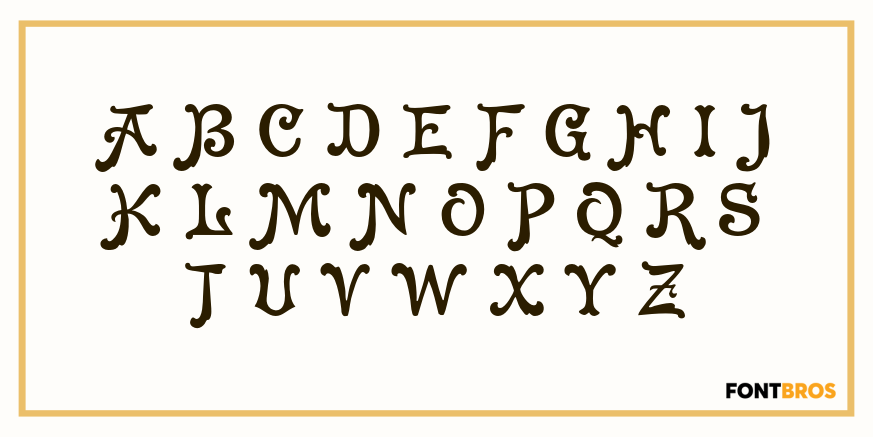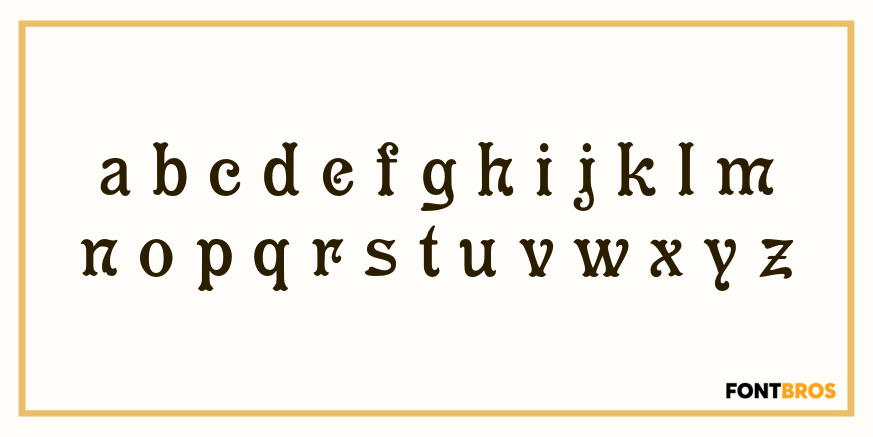
Cleopatra
Here's a great old face from the H. W. Caslon foundry in London; a real workhorse. The lowercase is eminently readable, so you can set entire paragraphs to good effect. We don't recommend it for setting all caps, but we did take time to kern it well; so you won't get a jumble of ovelapping letters if you do.